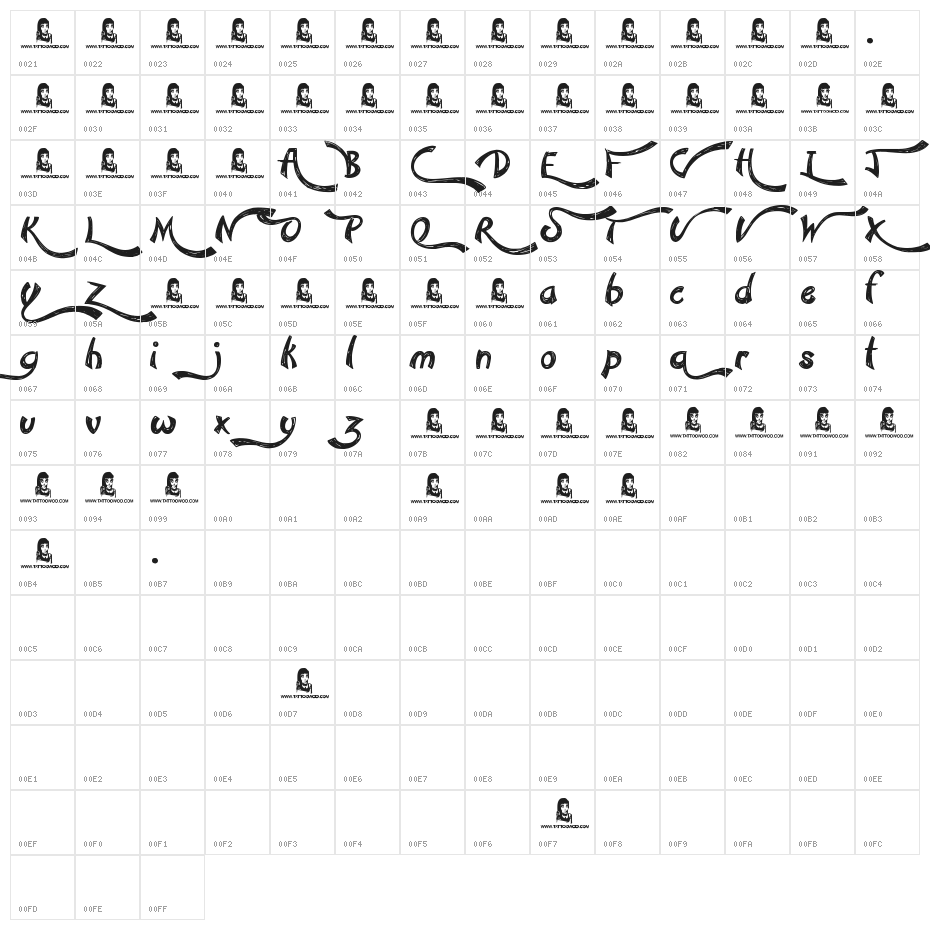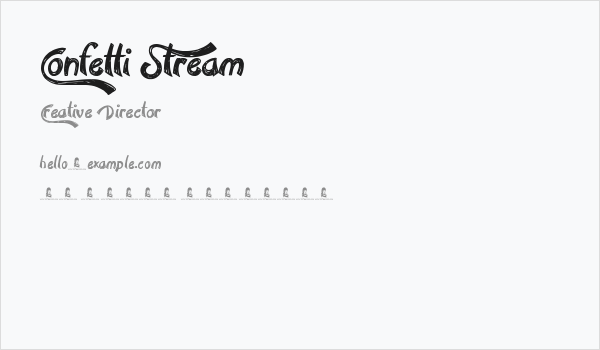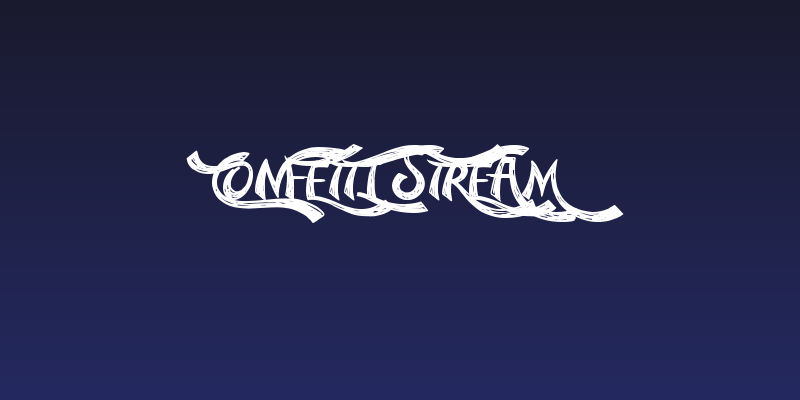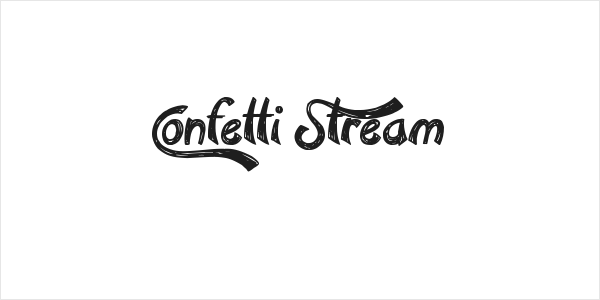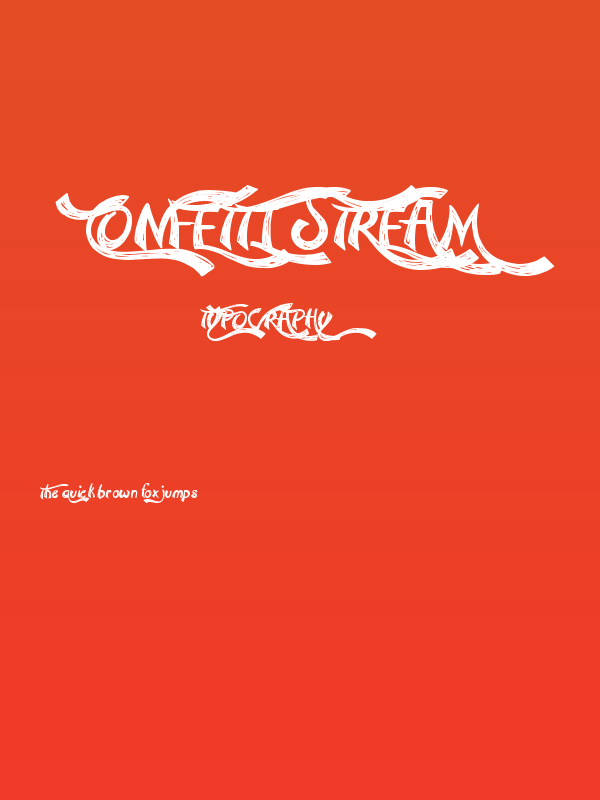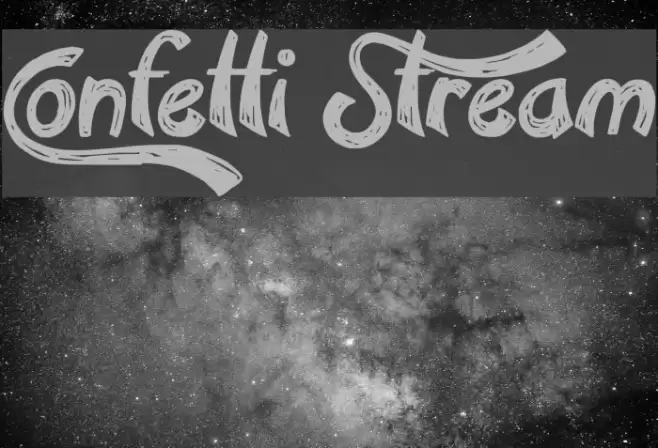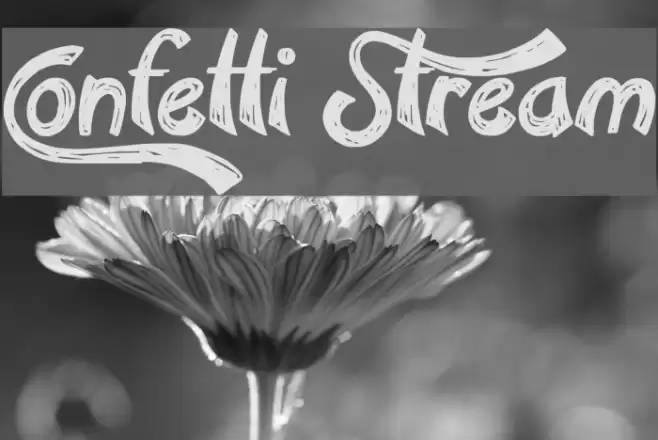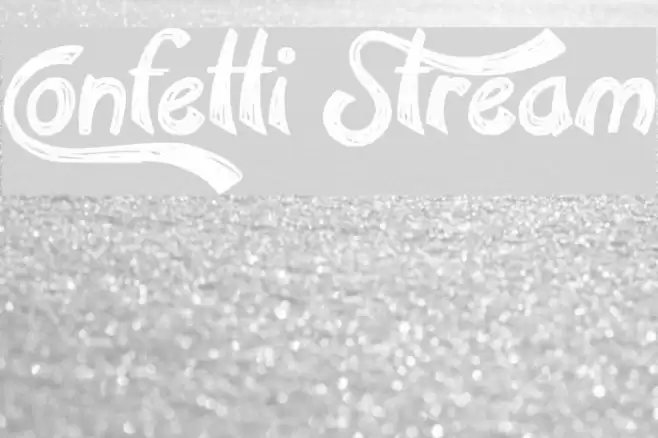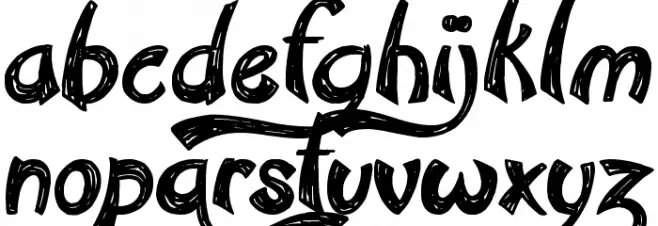
Confetti Stream Font
Confetti Stream Description
This font features a bold, expressive style with a hand-drawn appearance. The letters are characterized by thick, sweeping strokes and a dynamic, flowing design that gives an impression of movement and energy. The uppercase letters have an artistic flair, with exaggerated curves and loops, while the lowercase letters maintain a consistent style with slightly more restrained embellishments. The overall look is playful and creative, making it suitable for projects that require a touch of whimsy and individuality. The font's unique design elements make it stand out, offering a visually striking option for various creative applications.
| Proposed Projects | Ideal for creative projects such as posters, album covers, event invitations, and branding materials that require a playful and artistic touch. |